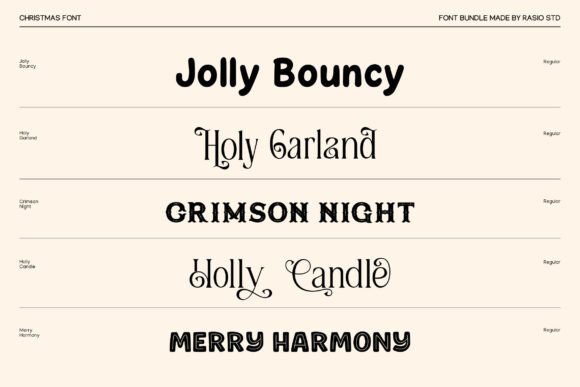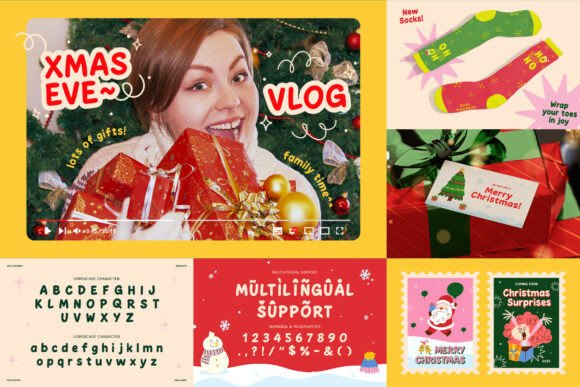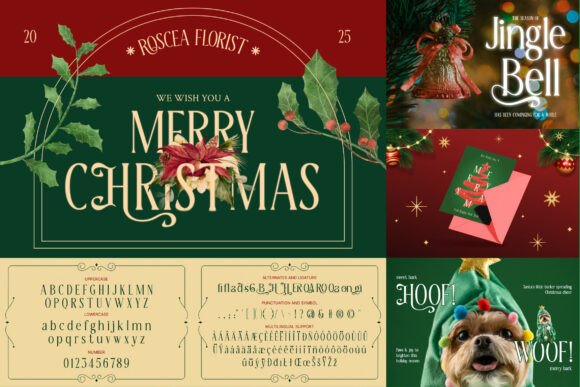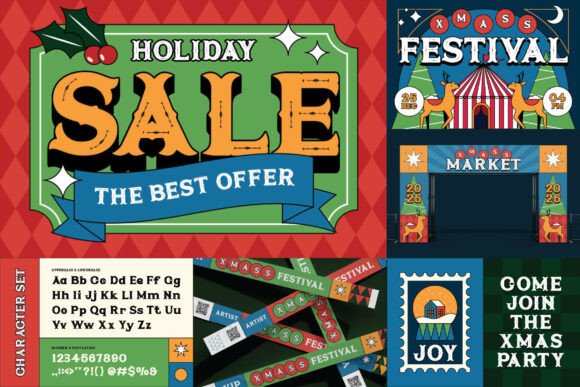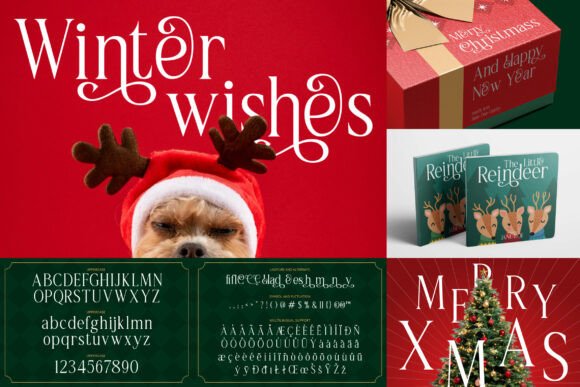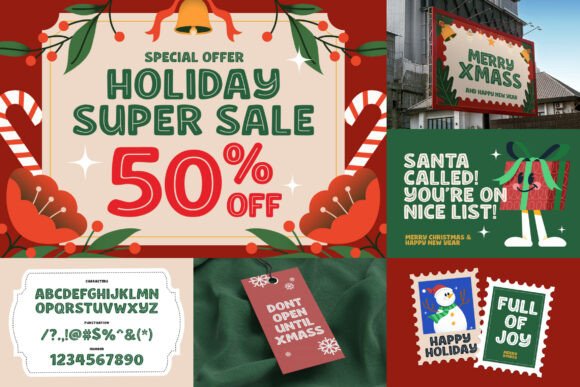
Introducing the Christmas Bundle Font: A Joyful Collection for Your Holiday Designs
Are you looking for the perfect way to add a touch of festive magic to your designs this holiday season? Look no further than the Christmas Bundle Font, a carefully curated collection of holiday-inspired fonts designed to bring warmth, charm, and festive spirit into your creations. From playful and bouncy lettering to elegant serif styles, this bundle captures the essence of Christmas in every character, making it the perfect addition to your design toolkit.
A Font for Every Holiday Style
The Christmas Bundle Font is not just a single font, but a collection of joyful and festive typefaces, each one uniquely crafted to evoke the spirit of the holiday season. Whether you’re looking for a fun and playful font to create eye-catching headlines or an elegant serif font to add a touch of sophistication to your designs, this bundle has everything you need. With a range of styles to choose from, you can easily find the perfect font to match your holiday brand’s personality and aesthetic.
Perfect for Seasonal Branding and Designs
The Christmas Bundle Font is perfect for a wide range of holiday designs, from seasonal branding and packaging to greeting cards, gift tags, posters, and social media content. These fonts are designed to instantly create a cozy and cheerful holiday mood, making them ideal for businesses and designers looking to create festive and engaging content. Whether you’re creating holiday promotions, decorations, or gifts, these fonts will help you spread joy and festive cheer.
Crafted with Care and Holiday Details
Each font in the Christmas Bundle Font collection has been carefully designed with love and attention to detail, ensuring that every character is infused with the magic of the holiday season. From intricate details to playful flourishes, these fonts are designed to work beautifully for both headlines and decorative use. Whether you’re creating bold and eye-catching headlines or delicate and intricate designs, these fonts will help you achieve your desired look.
Key Features of the Christmas Bundle Font
- Joyful and festive typefaces: A collection of holiday-inspired fonts designed to bring warmth and charm to your designs.
- Range of styles: From playful and bouncy lettering to elegant serif styles, there’s a font to match every holiday brand’s personality and aesthetic.
- Perfect for seasonal branding and designs: Ideal for holiday promotions, decorations, gifts, and more.
- Crafted with care and holiday details: Intricate details and playful flourishes make these fonts perfect for headlines and decorative use.
- Instantly create a holiday mood: These fonts are designed to evoke the spirit of the holiday season and create a cozy and cheerful atmosphere.
How to Use the Christmas Bundle Font
The Christmas Bundle Font is easy to use and can be incorporated into a variety of design projects. Here are a few ideas to get you started:
- Holiday branding: Use these fonts to create festive and engaging holiday promotions, packaging, and decorations.
- Greeting cards and gift tags: Add a personal touch to your holiday cards and gift tags with these joyful and festive fonts.
- Posters and social media content: Create eye-catching posters and social media content that captures the spirit of the holiday season.
- Packaging and labels: Use these fonts to add a touch of festive magic to your holiday packaging and labels.
| Font Name | Christmas Bundle Font |
| Author | product.rasiostudio |
The Christmas Bundle Font is a must-have for designers and crafters looking to add a touch of festive magic to their holiday designs. With its joyful and festive typefaces, range of styles, and ease of use, this bundle is perfect for seasonal branding, greeting cards, gift tags, posters, packaging, and social media content. Whether you’re looking for a fun and playful font or an elegant serif style, the Christmas Bundle Font has everything you need to create a cozy and cheerful holiday mood.